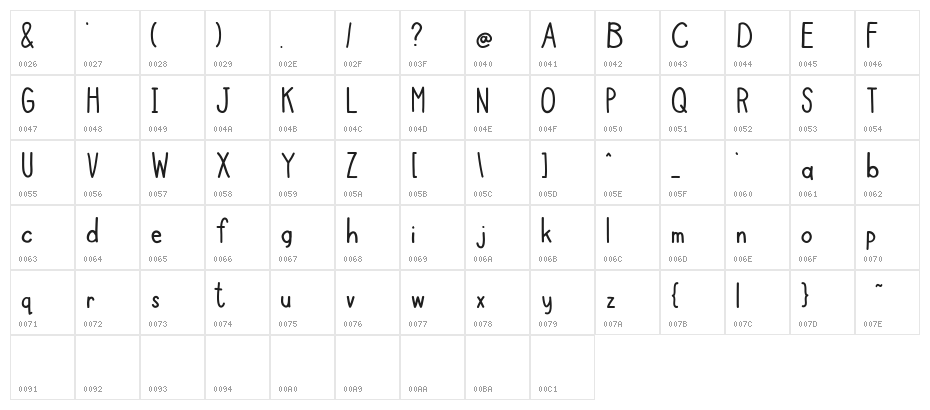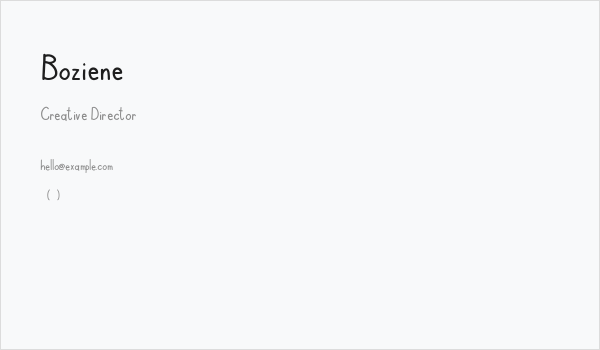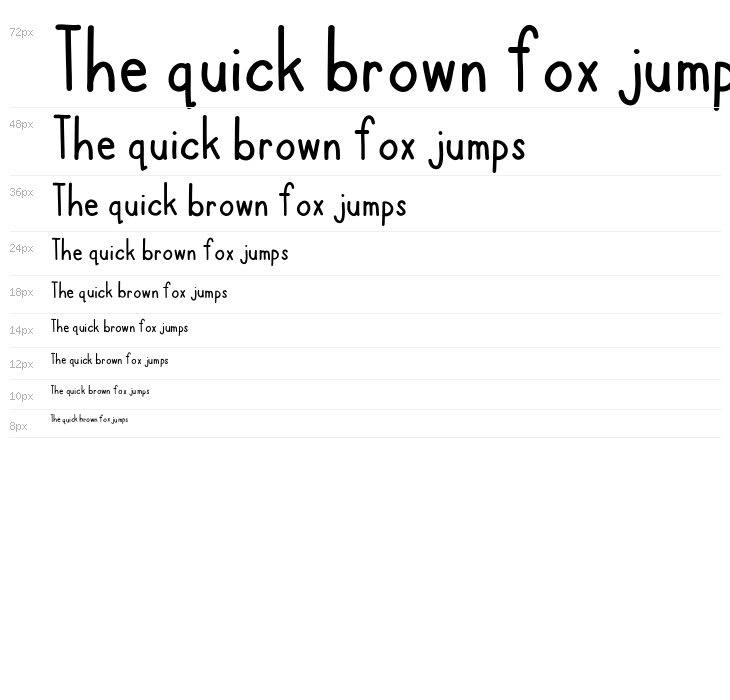
Boziene Font
Boziene Description
This font features a playful and informal style, characterized by its hand-drawn appearance. The letters are slightly irregular, giving it a whimsical and friendly feel. The uppercase letters are tall and narrow, while the lowercase letters maintain a consistent roundness, adding to the casual aesthetic. The numbers and special characters follow the same playful design, making it suitable for creative projects. The overall look is approachable and fun, perfect for conveying a sense of warmth and personality.
| Proposed Projects | Ideal for children's books, greeting cards, casual invitations, and playful branding. |